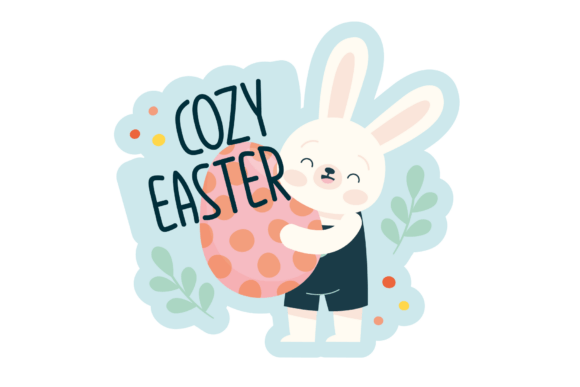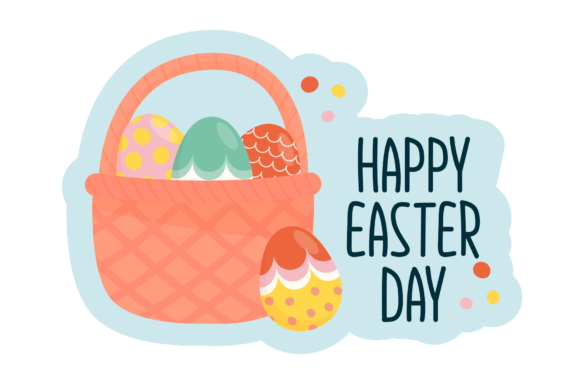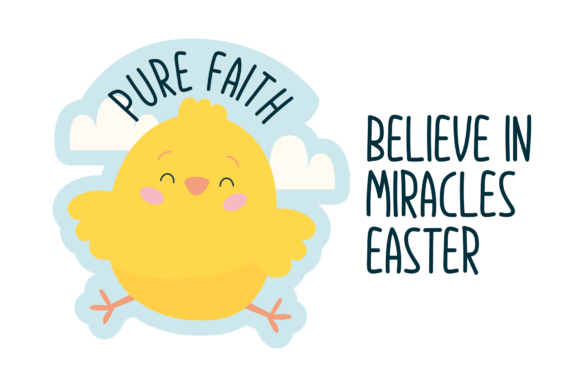
Easter Blessings Font: Elevate Your Designs with a Touch of Elegance
As a designer or crafter, you’re constantly on the lookout for the perfect font to bring your creative projects to life. Look no further than the Easter Blessings Font, a beautifully crafted handwritten font that’s designed to add style and personality to every element of your work. From branding materials to digital applications, this stunning font is sure to make your visuals stand out with a distinctive appeal.
What is Easter Blessings Font?
Easter Blessings is a meticulously designed handwritten font that exudes elegance and sophistication. Its refined aesthetic makes it perfect for a wide range of applications, from logos and business cards to t-shirts, posters, and flyers. Whether you’re working on a branding project or creating eye-catching marketing materials, this font is sure to elevate your designs to the next level.
Key Features of Easter Blessings Font
• Handwritten style: Easter Blessings boasts a beautiful, handwritten style that’s perfect for adding a personal touch to your designs.
• Refined aesthetic: The font’s refined aesthetic ensures that your visuals will stand out with a distinctive appeal.
• Versatile: Easter Blessings is perfect for a wide range of applications, from branding materials to digital applications.
• Elegant: The font’s elegant style makes it perfect for designs that require a touch of sophistication.
Perfect for Branding Materials
When it comes to branding, the right font can make all the difference. Easter Blessings Font is perfect for creating logos, business cards, and other branding materials that require a touch of elegance and sophistication. The font’s refined aesthetic ensures that your brand will stand out from the competition, while its handwritten style adds a personal touch that’s sure to resonate with your target audience.
Great for Digital Applications
In today’s digital age, it’s more important than ever to have visually appealing online presence. Easter Blessings Font is perfect for digital applications, including website headers, image sliders, and music covers. The font’s elegant style ensures that your digital content will stand out with a distinctive appeal, while its refined aesthetic adds a touch of sophistication that’s sure to impress.
Why Choose Easter Blessings Font?
So why choose Easter Blessings Font for your next project? Here are just a few reasons:
• Unique style: Easter Blessings boasts a unique, handwritten style that’s sure to set your designs apart from the competition.
• Elegant aesthetic: The font’s refined aesthetic ensures that your visuals will have a touch of sophistication and elegance.
• Versatile: Easter Blessings is perfect for a wide range of applications, from branding materials to digital applications.
Tips for Using Easter Blessings Font
Here are a few tips for getting the most out of Easter Blessings Font:
• Use it sparingly: Easter Blessings is a statement font, so use it sparingly to add emphasis to your designs.
• Pair it with other fonts: The font pairs well with other fonts, so don’t be afraid to experiment with different combinations.
• Experiment with colors: Easter Blessings looks great in a variety of colors, so experiment with different hues to find the perfect look for your design.
Font Name Easter Blessings Font
Author Seemly Fonts
Easter Blessings Font is a beautifully crafted handwritten font that’s perfect for designers and crafters who want to add a touch of elegance and sophistication to their creative projects. With its refined aesthetic, versatile design, and easy-to-use interface, this font is sure to become a staple in your design toolkit. So why wait? Download Easter Blessings Font today and start elevating your designs to the next level!